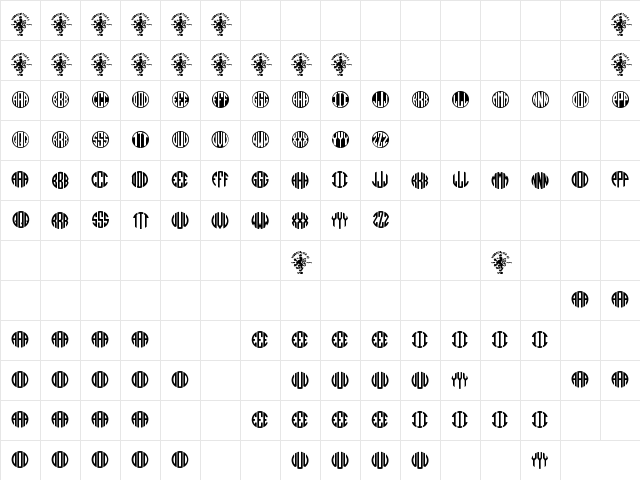
MONOGRAMOS Regular
| Designer | Woodcutter Manero |
Design Context for MONOGRAMOS Typeface
MONOGRAMOS uses fixed-width spacing throughout, giving it the structured, systematic character associated with coding environments and technical documentation.
Pro Tip: Use MONOGRAMOS with slightly increased line-height for extended reading — fixed-width spacing can feel dense in longer passages without extra breathing room.